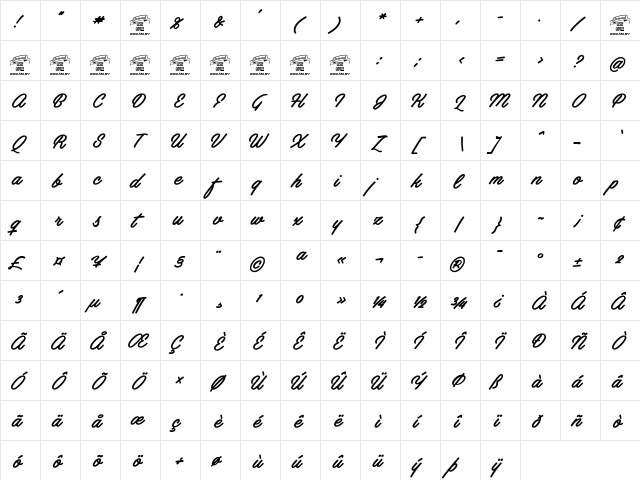
Artely Inks PERSONAL USE Regular
| Foundry | Mans Greback |
| Designer | Mans Greback |
Design Context for Artely Inks PERSONAL USE Typeface
Artely Inks PERSONAL USE is a composed and adaptable typeface that performs quietly and consistently across a wide range of design contexts.